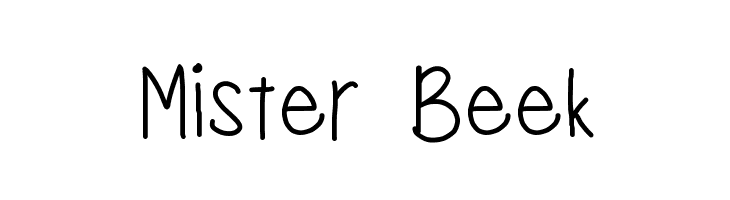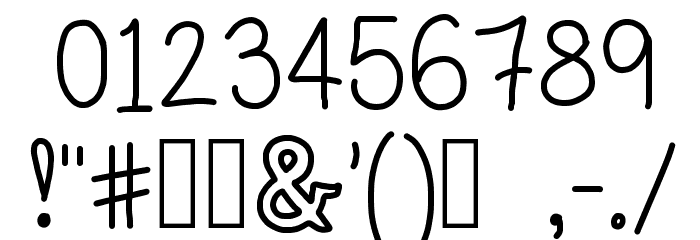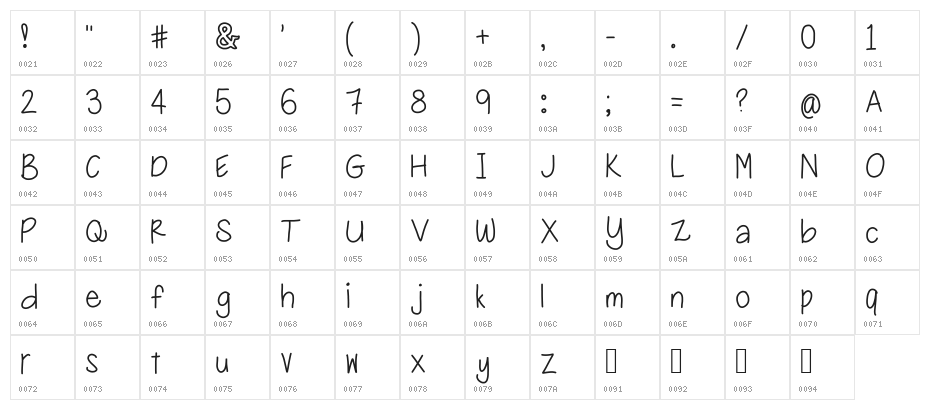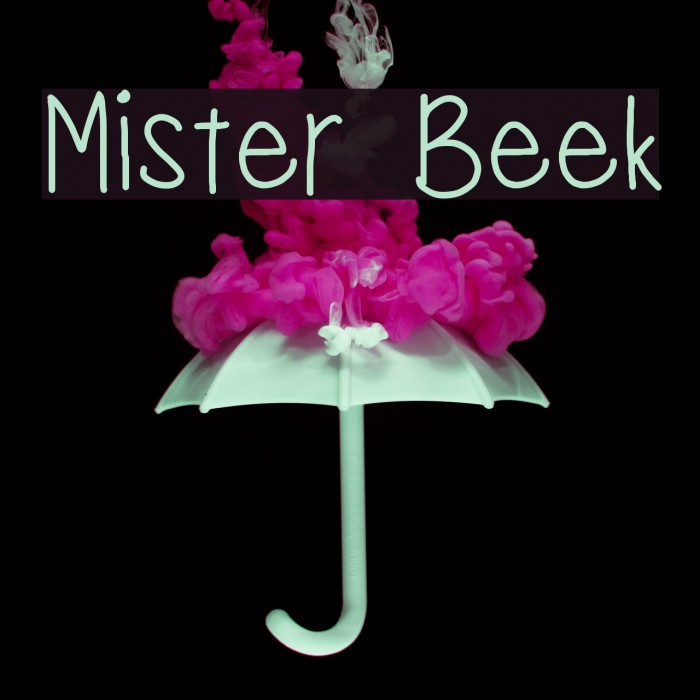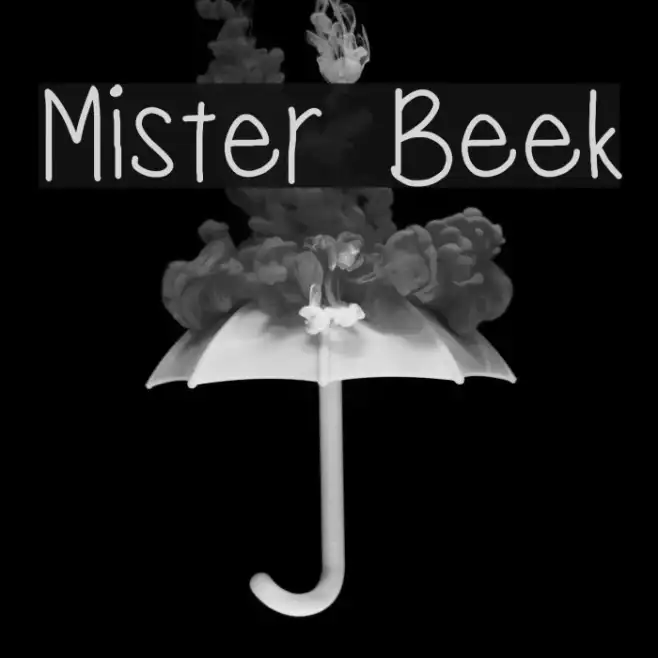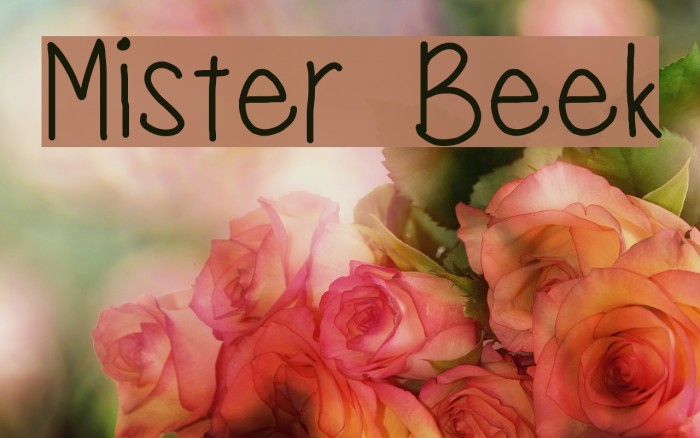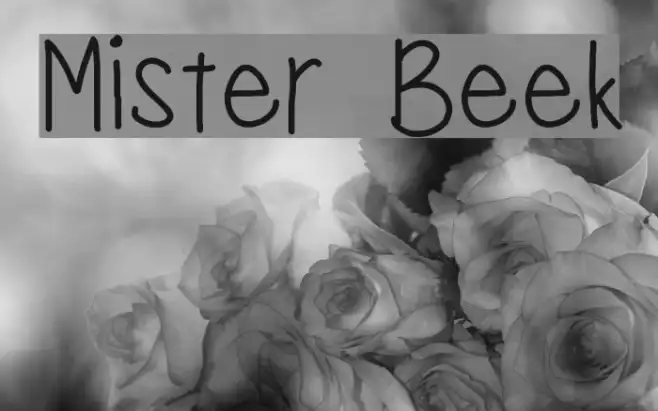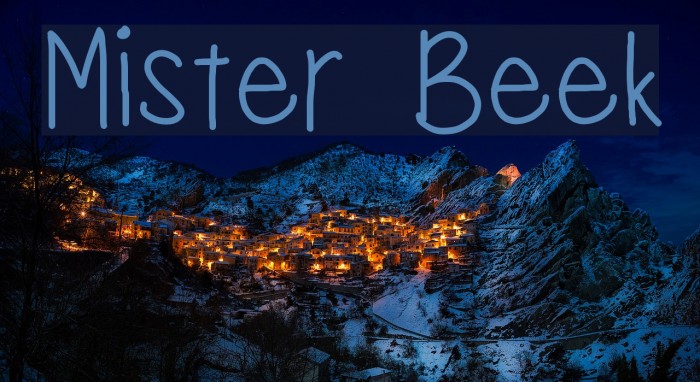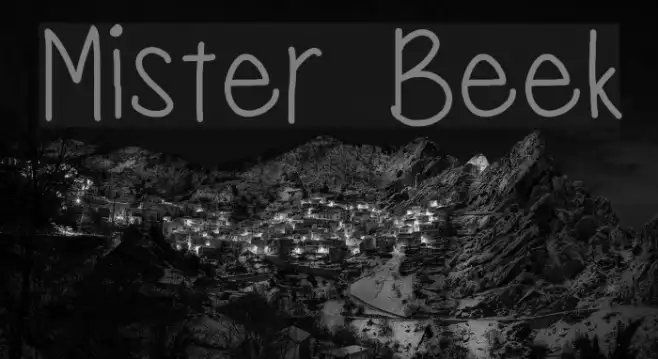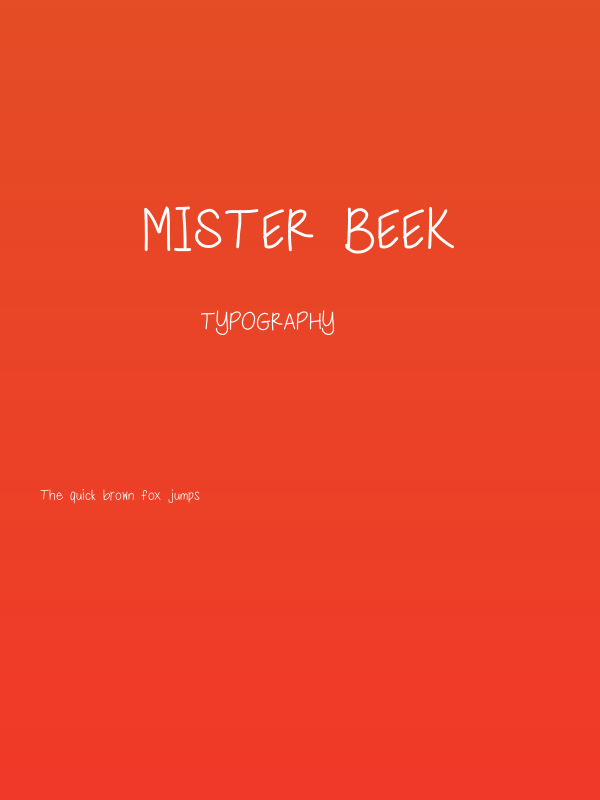
Mister Beek Font
Mister Beek Description
This font features a playful and casual handwritten style, characterized by its smooth curves and slightly uneven letterforms that give it a warm and friendly appearance. The uppercase letters are bold and rounded, while the lowercase letters maintain a consistent flow with a slightly whimsical touch. The numerals are clear and easy to read, matching the overall informal aesthetic. Special characters are designed with the same playful spirit, making this font versatile for various creative projects. Its legibility and charm make it suitable for both digital and print media.
| Proposed Projects | Ideal for greeting cards, children's books, playful branding, and social media graphics. |